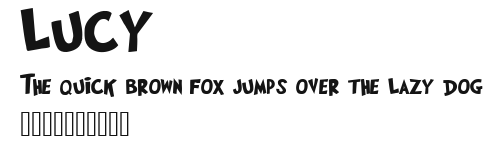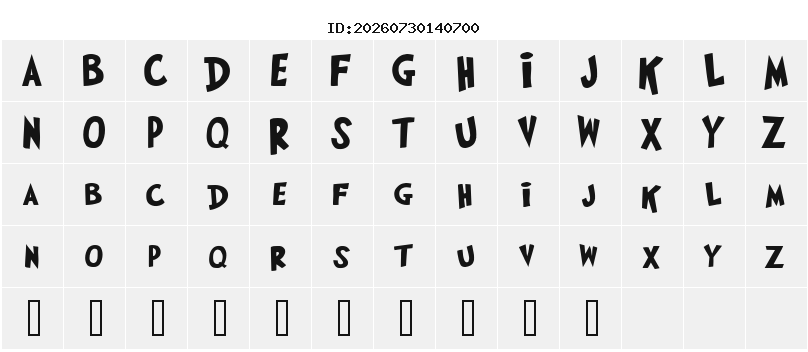
lucy Preview
• Font Name: lucy
• Font ID: lucy
• Full Font Name: lucy
About lucy.ttf
lucy.ttf is a modern, elegant sans-serif font designed for ultimate readability and visual harmony. Perfect for branding, headlines, web design, and print materials.